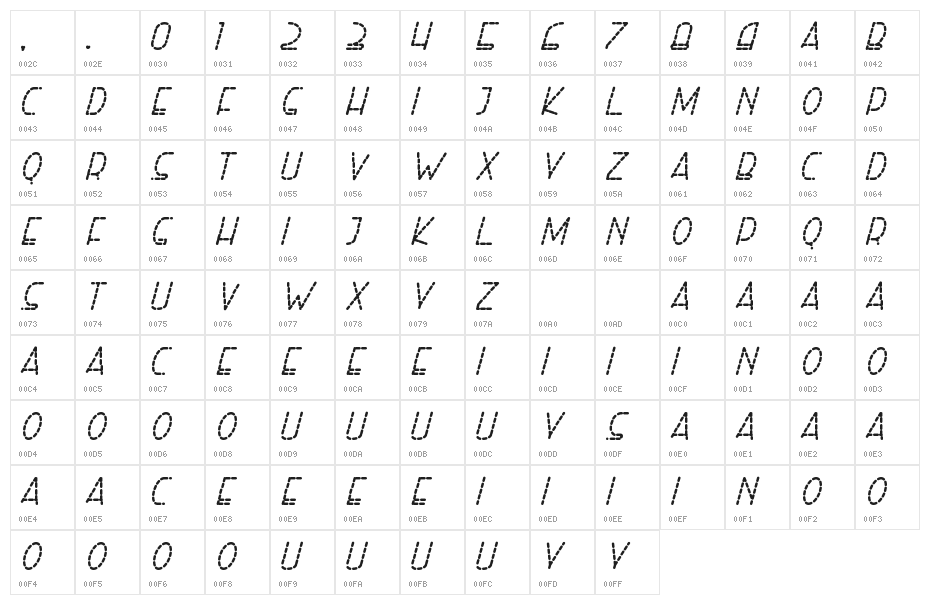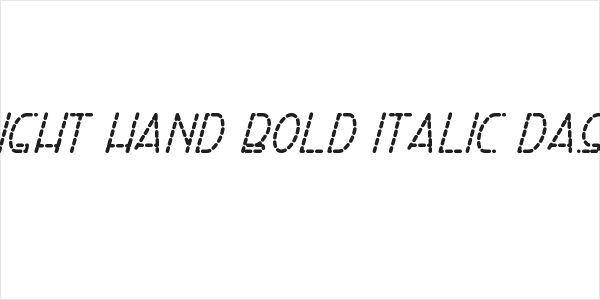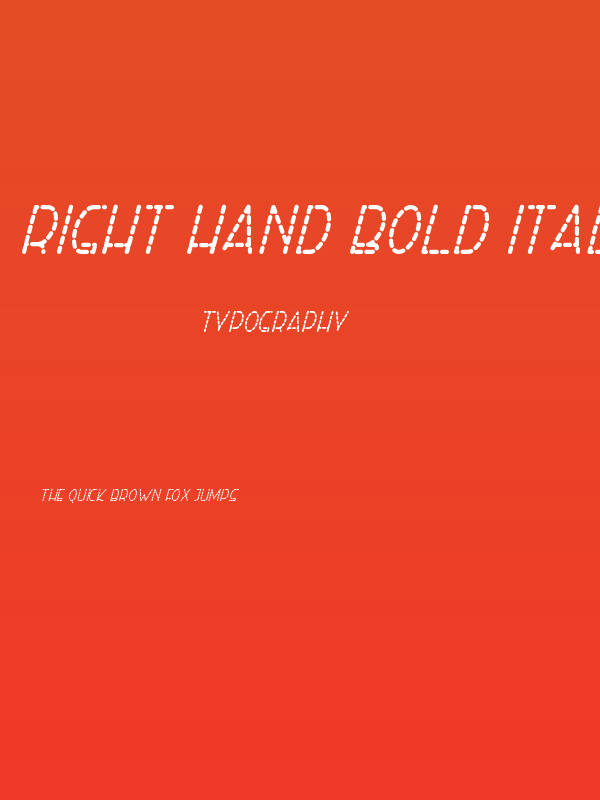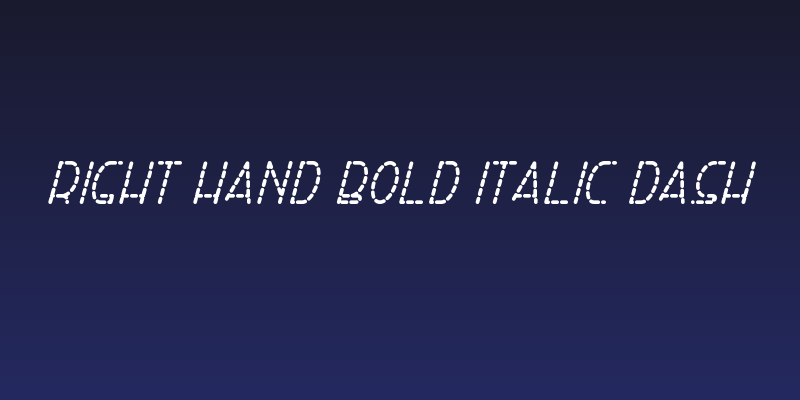
Right Hand Bold Italic Dash Font
Right Hand Bold Italic Dash Description
This font features a unique dotted style that mimics the appearance of a dashed line, creating a modern and playful aesthetic. The characters are bold and italicized, giving them a dynamic and forward-leaning appearance. The uppercase and lowercase letters maintain a consistent style, with rounded edges and uniform spacing between the dots. The numbers and special characters follow the same design principles, ensuring a cohesive look across all elements. This font is particularly eye-catching and would be suitable for projects that require a distinctive and contemporary touch.